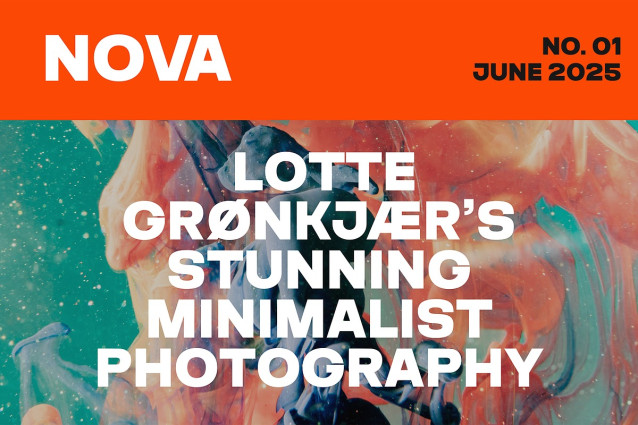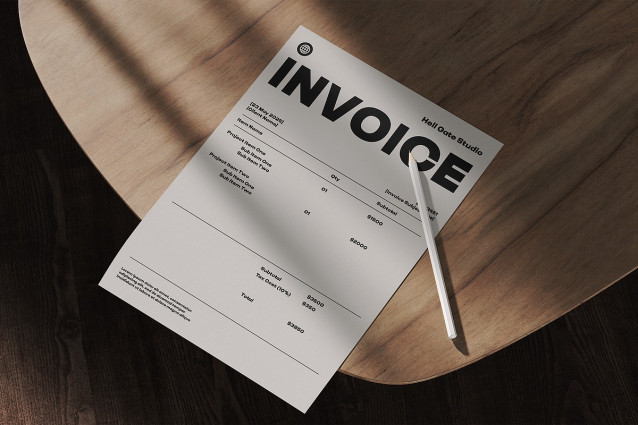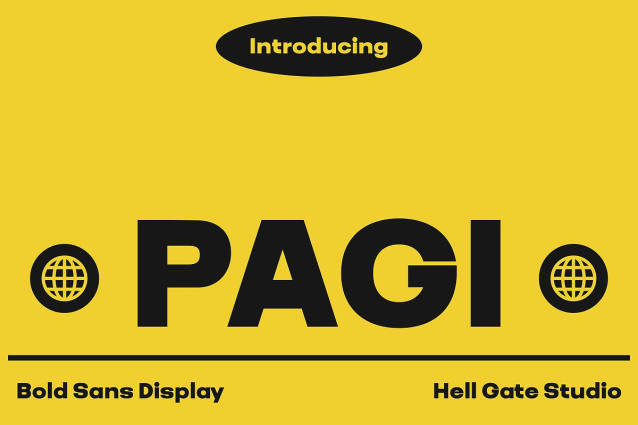
Pagi Sans Font
Pagi Sans Font, a finely crafted Sans Serif font, promises to bring elegance to any design theme. With its bold strokes, Pagi Bold adds a touch of sophistication to your projects.
The versatility of this font allows for seamless text and color editing, giving you the freedom to make edits that suit your unique style. Rendered in high quality, **Pagi Bold** is a great choice for those who pursue uniqueness and elegance.